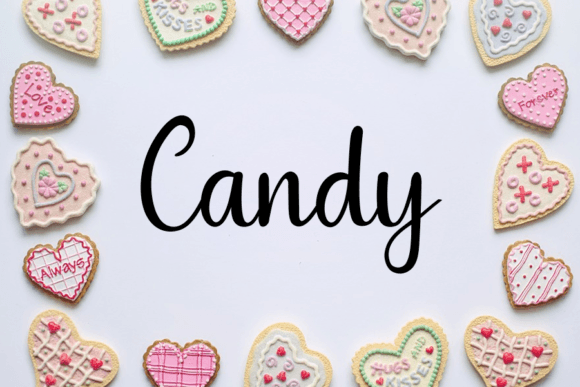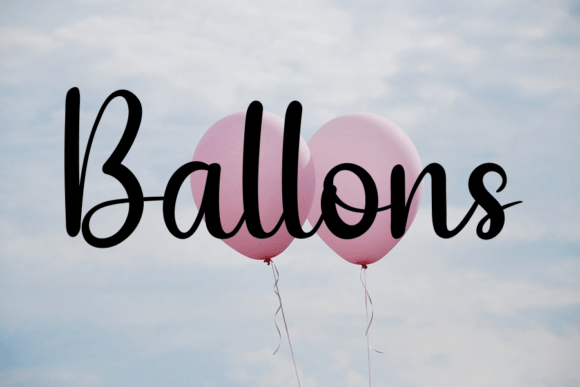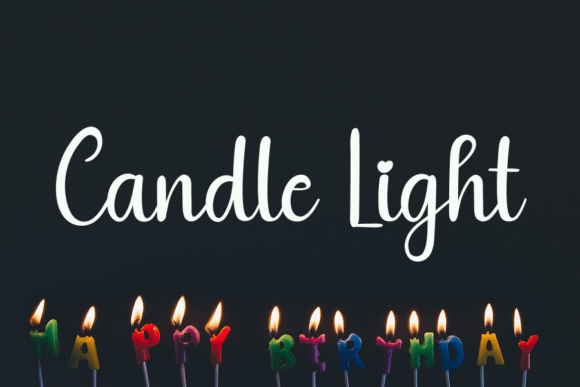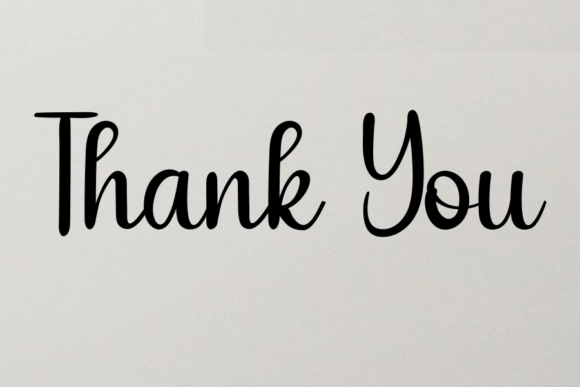
The Perfect Script for Celebrations: Birthday Font
Have you ever sat at your desk, staring at a blank sheet of paper, and suddenly been hit with a wave of inspiration? Maybe it’s a new project idea, or a creative concept that’s been brewing in the back of your mind. For designers, those moments of clarity can be some of the most exciting – and it’s exactly what happened when we discovered the Birthday Font.
This sweet and adorable handwritten font is more than just a pretty face – it’s a versatile tool that can elevate everything from greeting cards to headlines. Whether you’re working on a project for a special occasion or just need a unique touch, Birthday Font is guaranteed to add a neat and natural feel that’s sure to delight. And for designers, its value lies in its ability to bring a personal touch to even the most commercial projects.
Birthday Font Key Features
- Font Family: A custom-designed font family specifically created for birthday celebrations, offering a unique and festive look.
- Unique Characteristics: Features hand-drawn and cursive elements, adding a personal touch to birthday invitations, cards, and other celebratory materials.
Birthday Font Review
Overall, I’d say the Birthday Font is a fun and playful addition to any project. Here are some things that I think work well: ✨
- Unique and creative design: The font is designed specifically for celebrating birthdays, making it perfect for party invitations, social media posts, and more.
- Colorful and vibrant: The font comes in a range of bright and cheerful colors that are sure to add some festive flair to your designs.
- Easy to read: Despite its playful nature, the font is still easy to read and understand, even at smaller sizes.
- Limited flexibility: The font is designed specifically for birthdays, so it may not be the best choice for other types of projects.
- No bold or italic options: While the font is available in a range of colors, it’s not available in bold or italic styles, which may limit its versatility.
- May not be suitable for formal projects: The font’s playful nature may make it unsuitable for formal or professional projects.
Overall, I think the Birthday Font is a great choice for projects that need a fun and festive touch. Just be aware of its limitations and use it accordingly.
The Birthday Font is commonly used for:
- Birthday invitations and party decorations.
- Wedding invitations and decorations.
- Special occasion graphics and designs.
Remember to use the font in a way that complements your design and adds a celebratory touch.
Alternatives to Birthday Font for Designers
Birthday Font is a popular font used for birthday invitations and celebrations. However, there are several alternatives that designers can use to add some variety to their designs.
Cake Topper Script
Cake Topper Script is a beautiful, cursive font that is perfect for birthday invitations, greeting cards, and other celebratory designs. It has a elegant and whimsical feel that is reminiscent of cake toppers. Compared to Birthday Font, Cake Topper Script has a more refined and sophisticated look, making it ideal for more formal or high-end designs.